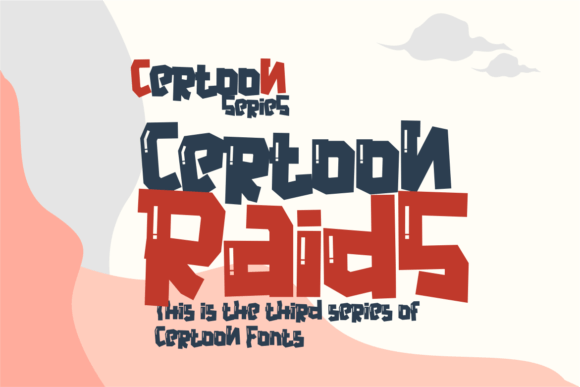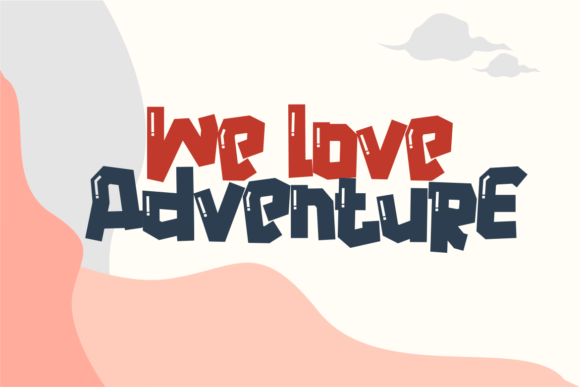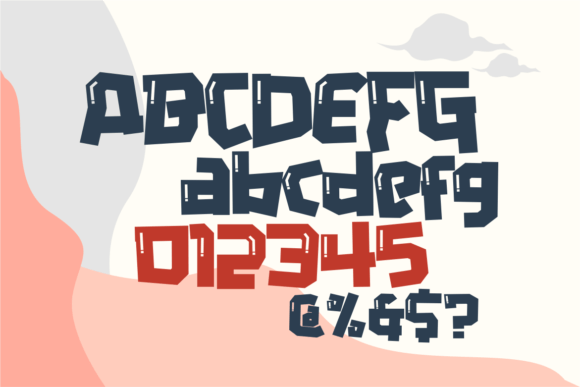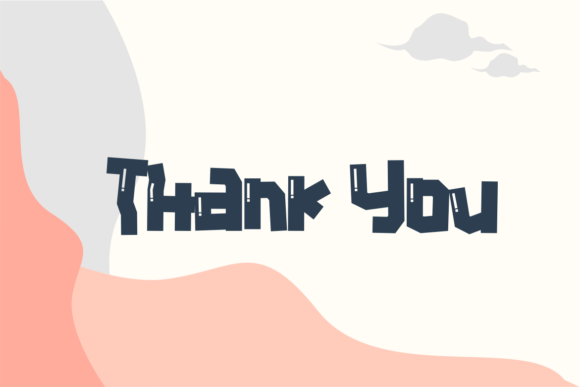
Introducing CertooN RaidS: The Vibrant Font for Eye-Catching Displays
In the world of typography, few fonts manage to capture the essence of fun and professionalism as effortlessly as CertooN RaidS. This exciting addition to the CertooN font series is specifically designed to make a statement, particularly in children-centric projects or events where a playful yet sophisticated appearance is paramount. With its multifaceted versatility, CertooN RaidS is not just a font but a creative tool that can elevate various applications, including screen printing, sticker cutting, and dynamic flyers.
The Essence of CertooN RaidS
CertooN RaidS is more than just a font; it’s an experience. Crafted with the spirit of the radiant summer season in mind, this vibrant font is poised to bring a touch of whimsical polish to any creative project. Its design is a testament to the innovative approach of the CertooN creative team, who envision this font as a unique identity that can seamlessly integrate into any artistic vision. Whether you’re working on a children’s book, planning a fun event, or designing engaging marketing materials, CertooN RaidS is your go-to font for adding a dash of excitement and professionalism.
Multifaceted Versatility
One of the standout features of CertooN RaidS is its incredible versatility. This font isn’t limited to just one type of project or application. Its dynamic and playful nature makes it perfect for a wide range of uses, including:
- Screen Printing: Create eye-catching apparel and accessories that are sure to turn heads. CertooN RaidS’s bold and playful characters ensure that your designs stand out, whether it’s for a children’s event, a summer camp, or a fun run.
- Sticker Cutting: Add a touch of fun and personality to your stickers with CertooN RaidS. Its clear and engaging lettering makes it perfect for stickers aimed at kids or for creating custom labels for products and events.
- Dynamic Flyers: Capture the attention of your audience with flyers that pop. CertooN RaidS can help you create vibrant and engaging flyers for events, promotions, or informational campaigns that require a youthful and energetic vibe.
Designed for Creative Expression
CertooN RaidS is not just a font; it’s a tool for creative expression. Its unique character and playful dynamics are designed to augment your artistic vision, allowing you to convey your message in a fun and engaging way. Whether you’re a designer looking for a font that can add a touch of whimsy to your projects or a crafter seeking a playful yet professional look for your creations, CertooN RaidS is the perfect choice.
Why Choose CertooN RaidS?
Choosing CertooN RaidS for your next project comes with numerous benefits:
- Unique Identity: Stand out from the crowd with a font that is both unique and captivating.
- Versatility: Use CertooN RaidS across various applications, from digital designs to print materials.
- Professional yet Playful: Achieve a balance of professionalism and playfulness, making it ideal for projects that require a fun edge.
- Easy Integration: Seamlessly integrate CertooN RaidS into your creative projects, enhancing your artistic expression.
CertooN RaidS is a vibrant and versatile font designed to bring a touch of whimsical polish to your creative projects. Its playful yet professional appearance makes it an ideal choice for children-centric projects, events, and various applications such as screen printing, sticker cutting, and dynamic flyers. With CertooN RaidS, you can elevate your designs, capture the spirit of the summer season, and let its delightful dynamics augment your artistic expression. Experience the difference CertooN RaidS can make in your next project and discover a font that is as fun as it is functional.
Get Ready to Raid Your Designs with CertooN RaidS!
Don’t miss out on the opportunity to revolutionize your designs with the playful and professional charm of CertooN RaidS. Dive into the world of vibrant typography and let CertooN RaidS be the font that adds that extra sparkle to your creative projects. Whether you’re a seasoned designer or a crafty enthusiast, CertooN RaidS is your key to unlocking a new level of creative expression.